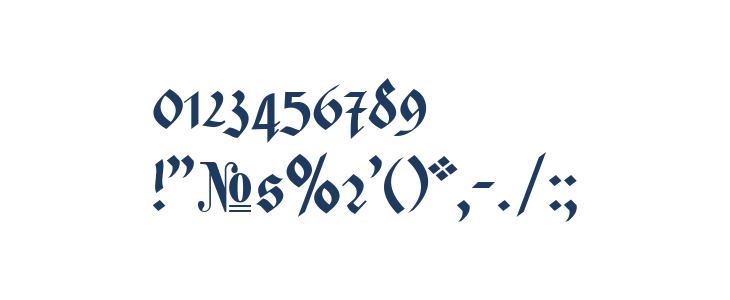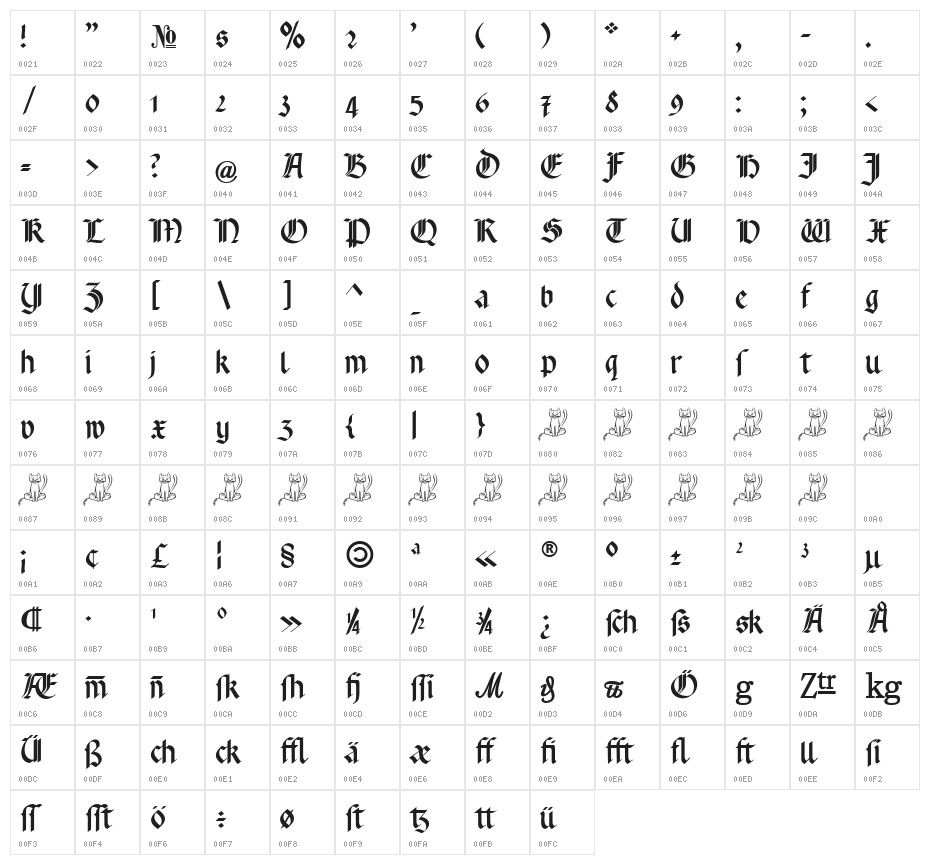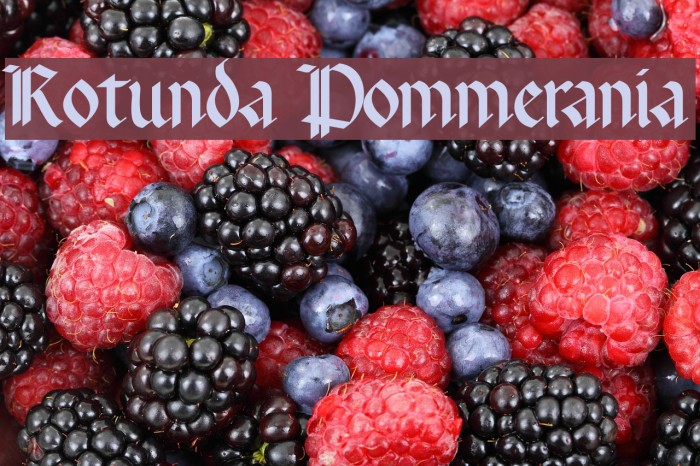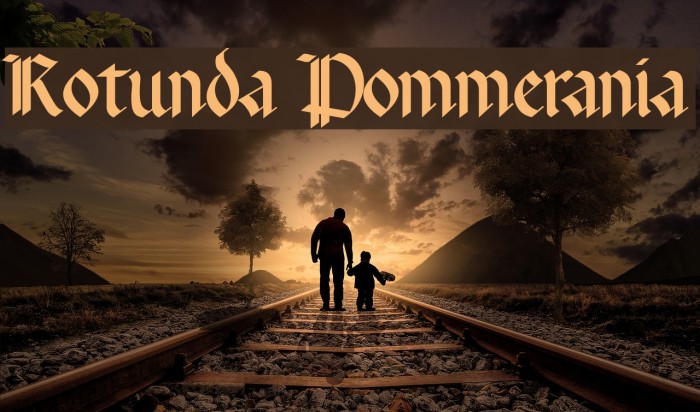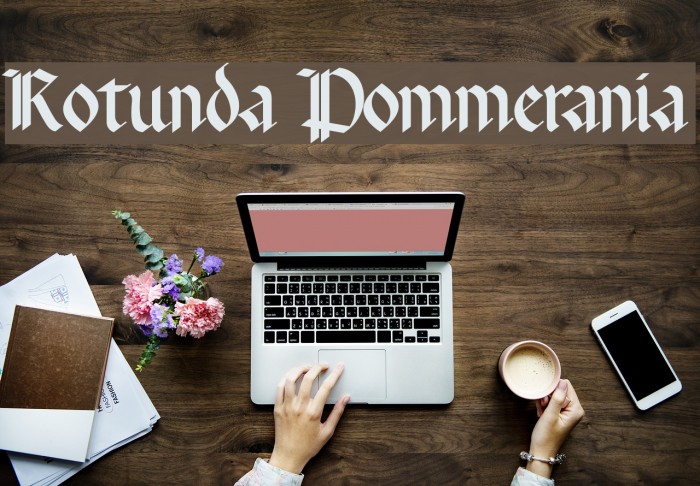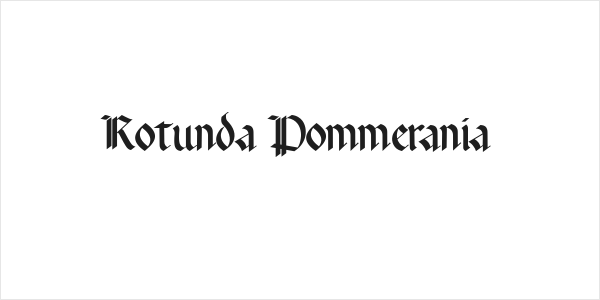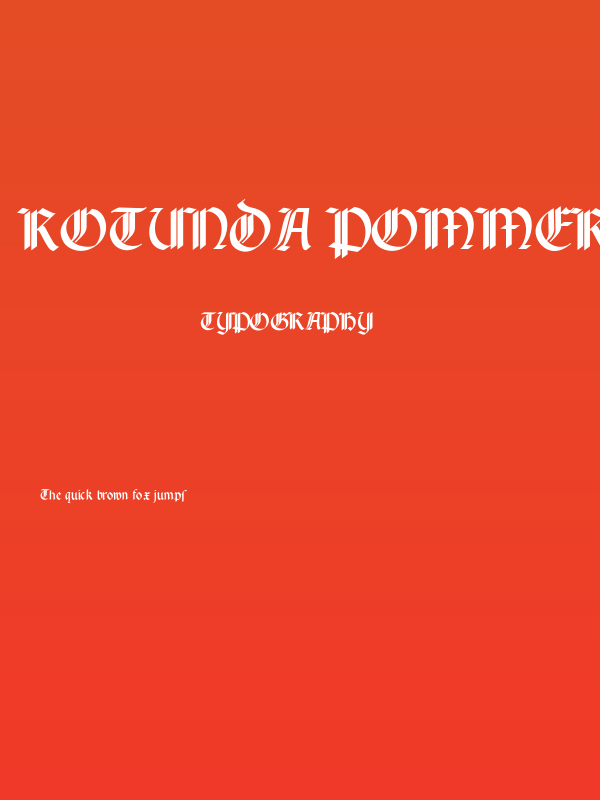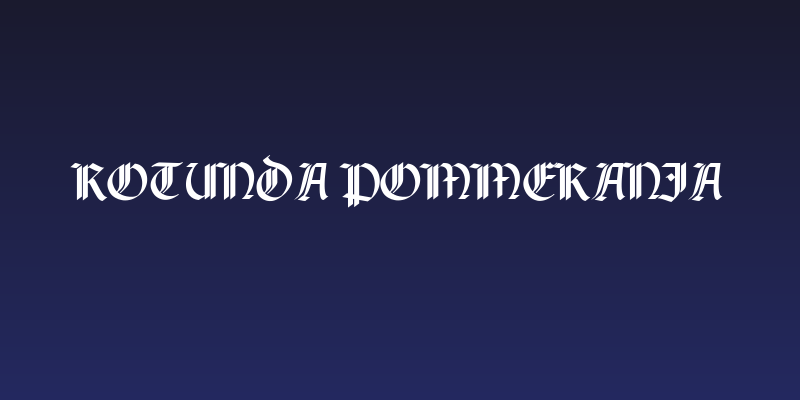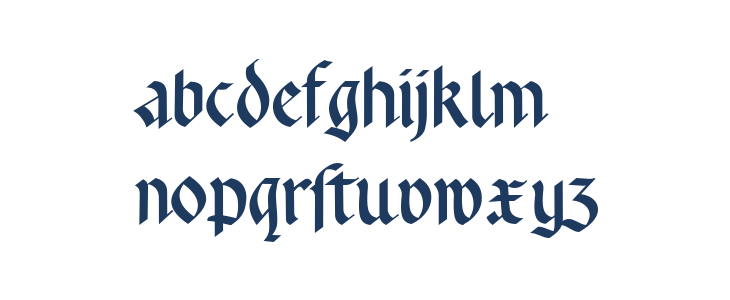
Rotunda Pommerania Font
Rotunda Pommerania Description
This font embodies the traditional elegance of blackletter typography, characterized by its intricate and ornate design. The letters are bold and angular, with sharp, pointed serifs and a distinct medieval flair. The uppercase characters are particularly elaborate, featuring dramatic flourishes and a strong vertical emphasis. The lowercase letters maintain the same stylistic elements but are slightly more subdued, allowing for better readability. The numerals are consistent with the overall style, offering a unique and historical touch. Special characters are crafted with the same attention to detail, making them perfect for decorative purposes. This font is ideal for projects that require a touch of historical or gothic aesthetics, such as invitations, certificates, or branding for luxury products.